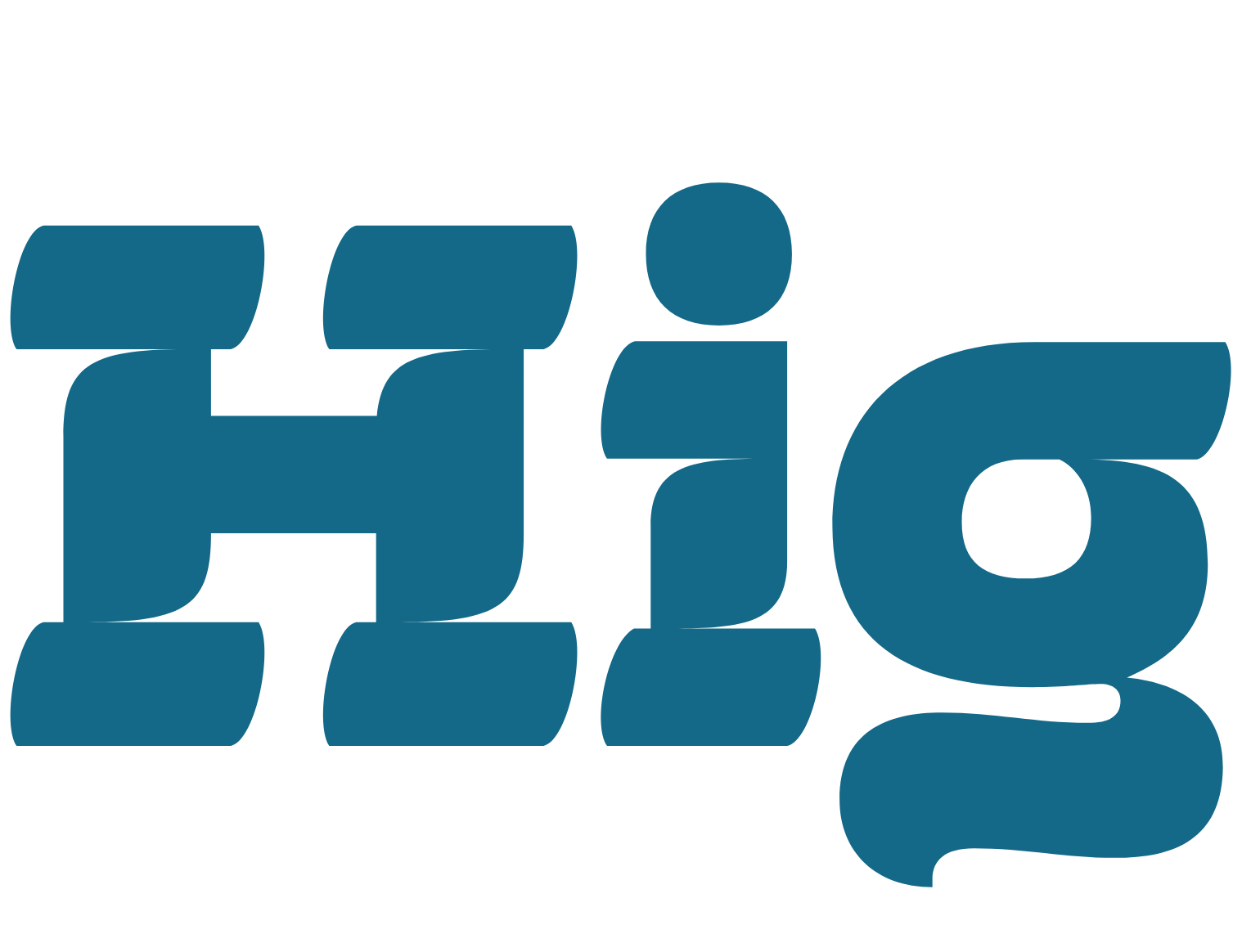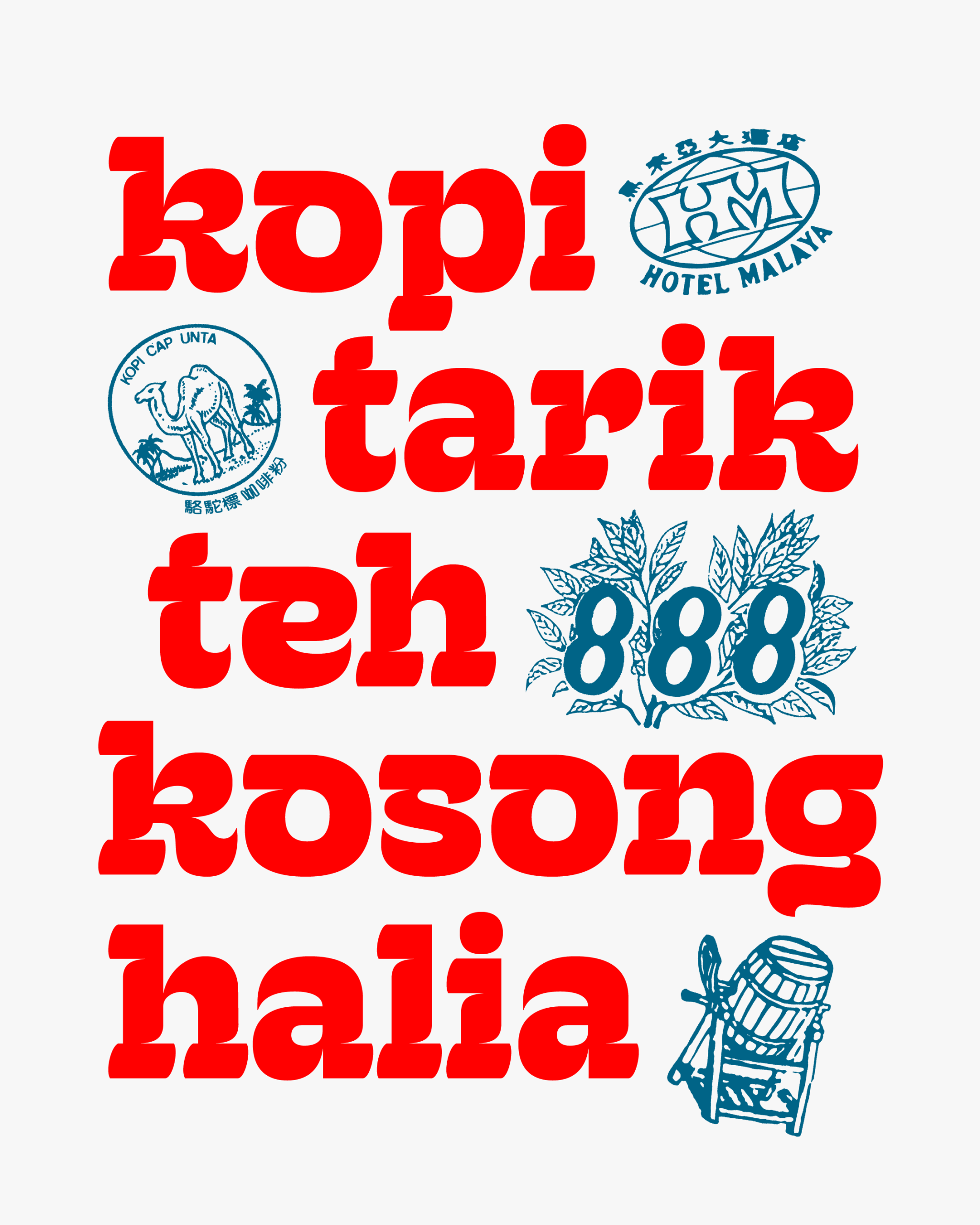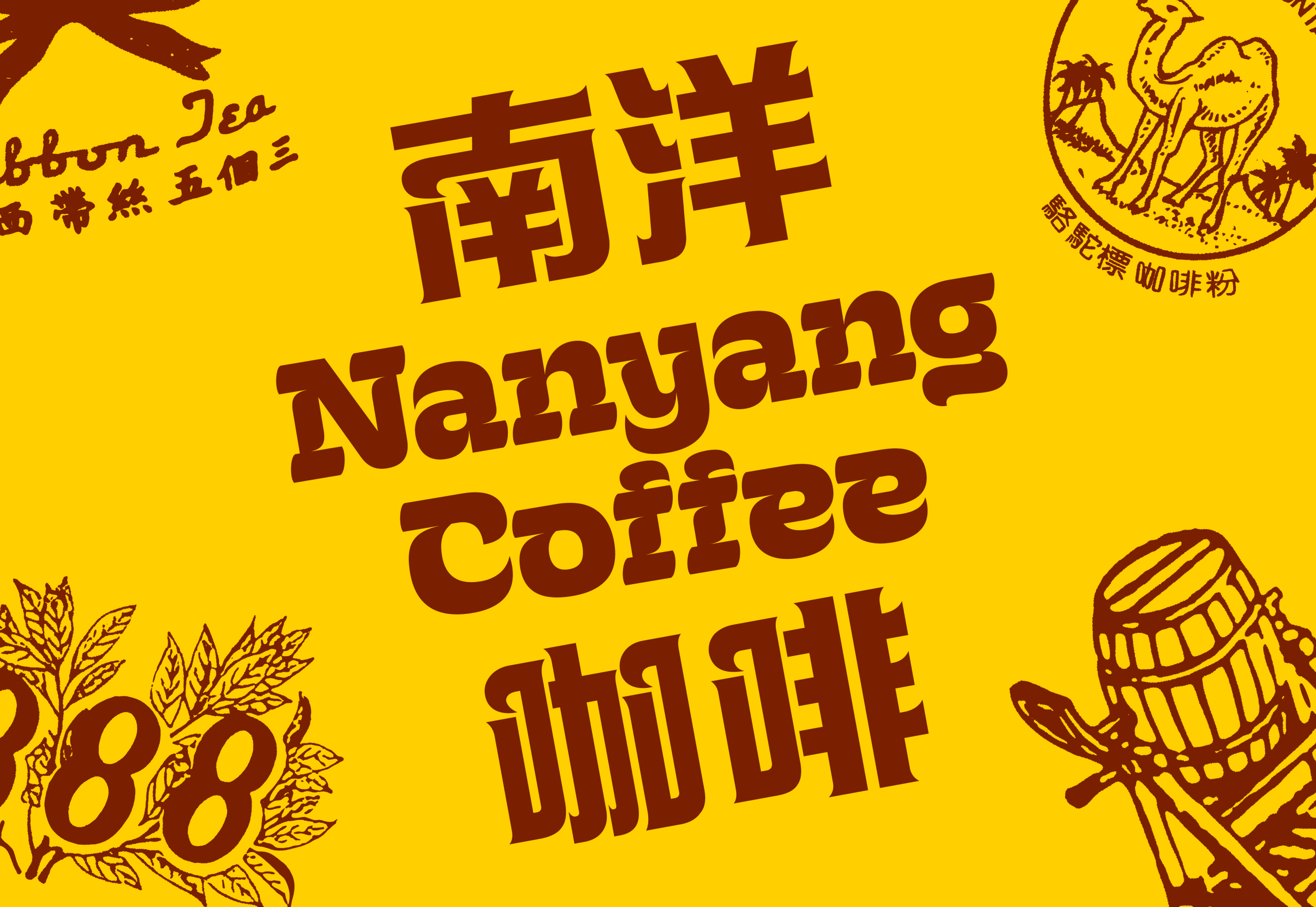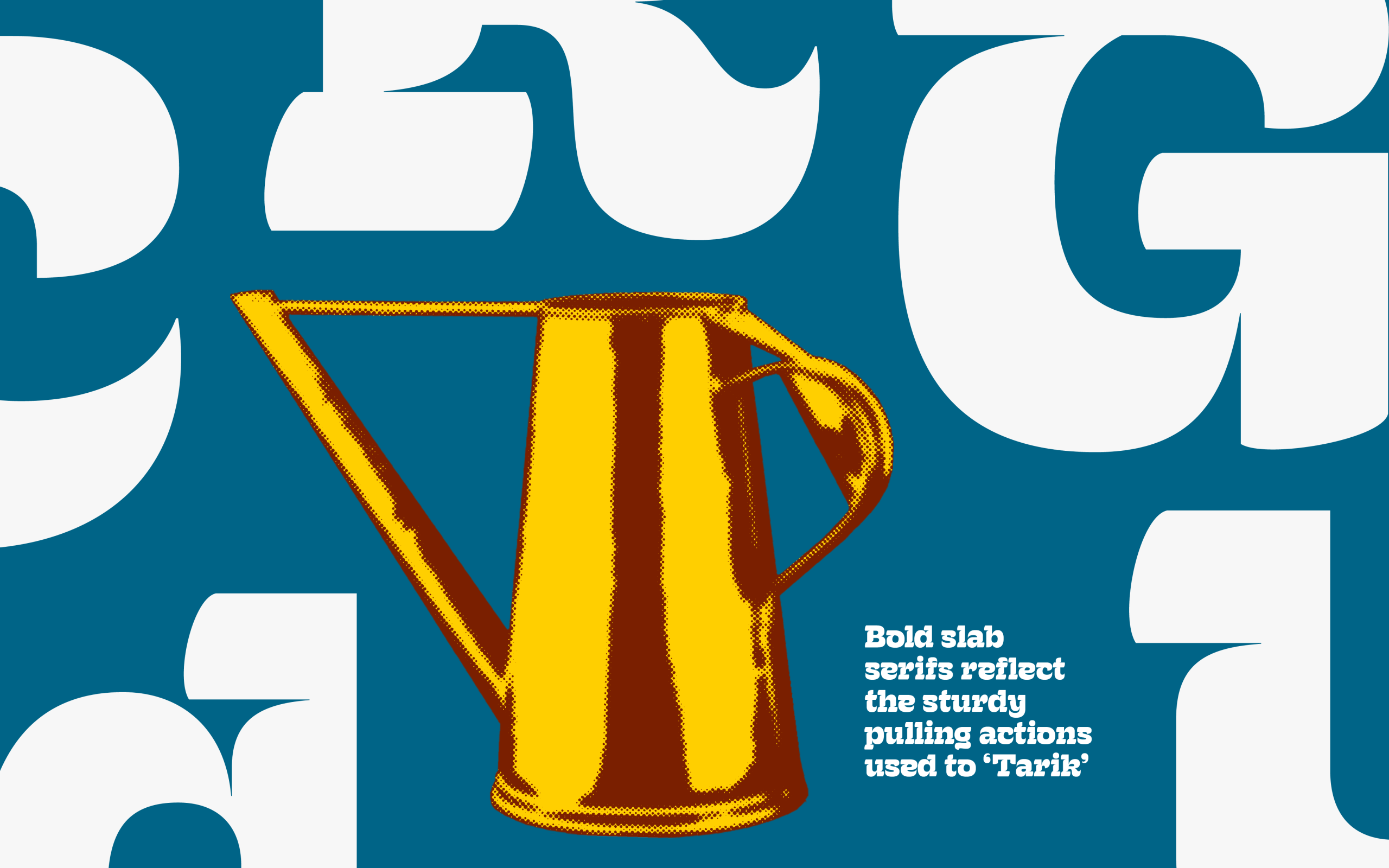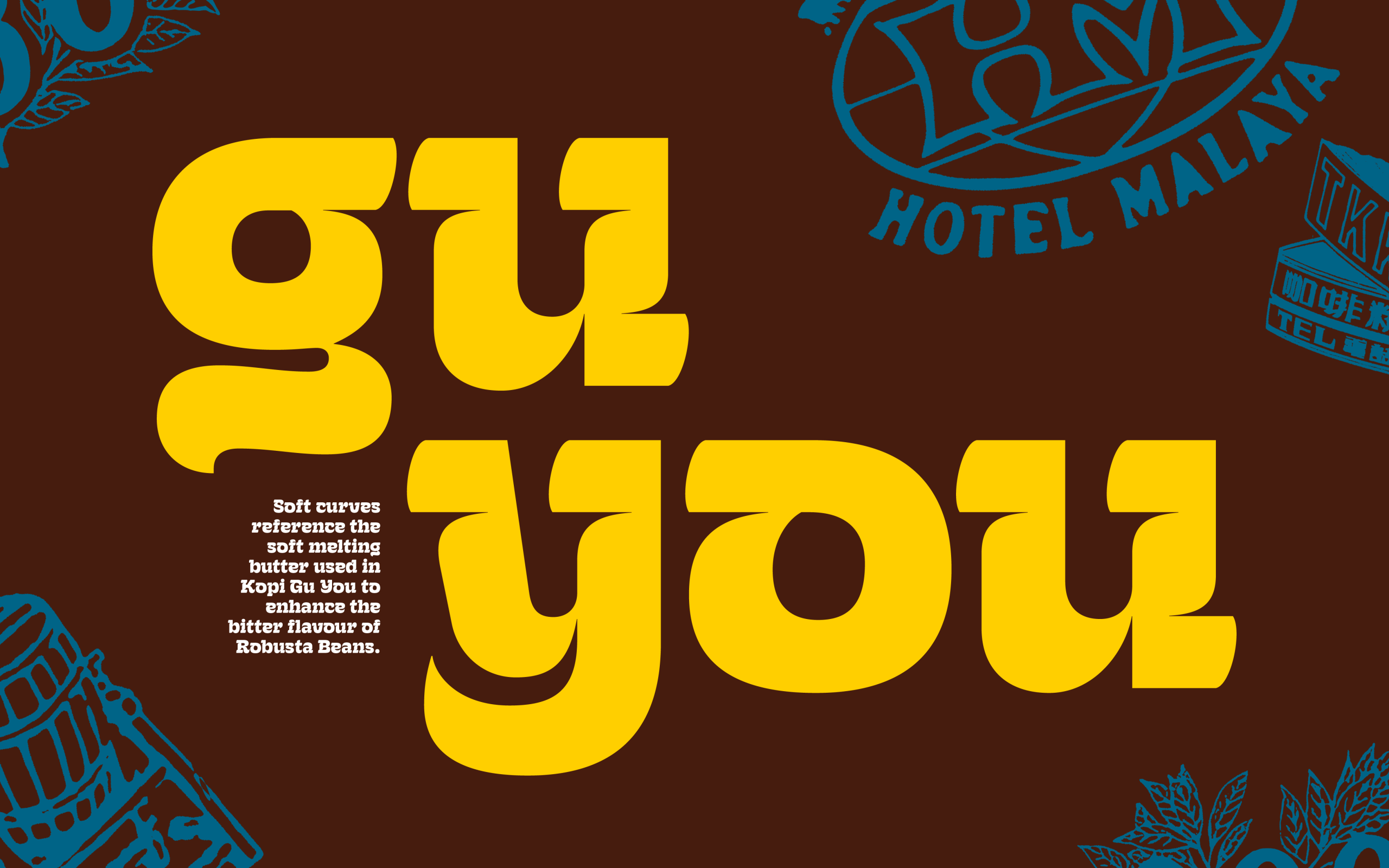
Robusta is a bold slab serif inspired by Singapore’s butter coffee — kopi gu you — a Hainanese creation that embodies warmth, strength, and cultural blend.
Robusta translates Singapore’s kopi trade into form: sturdy slabs and soft curves mirror the sturdiness of ‘tarik’ (the act of pulling coffee) and the melting butter that enriches it. Traditionally, kopi uses Robusta coffee beans for its practicality and affordability. While they are known to be harsher and bitter, they are roasted with margarine and sugar to enhance its flavour, creating a strong, bold and nutty flavour locals have come to love.
Practical yet expressive, it’s a typographic brew of culture, labour, and language made timeless.